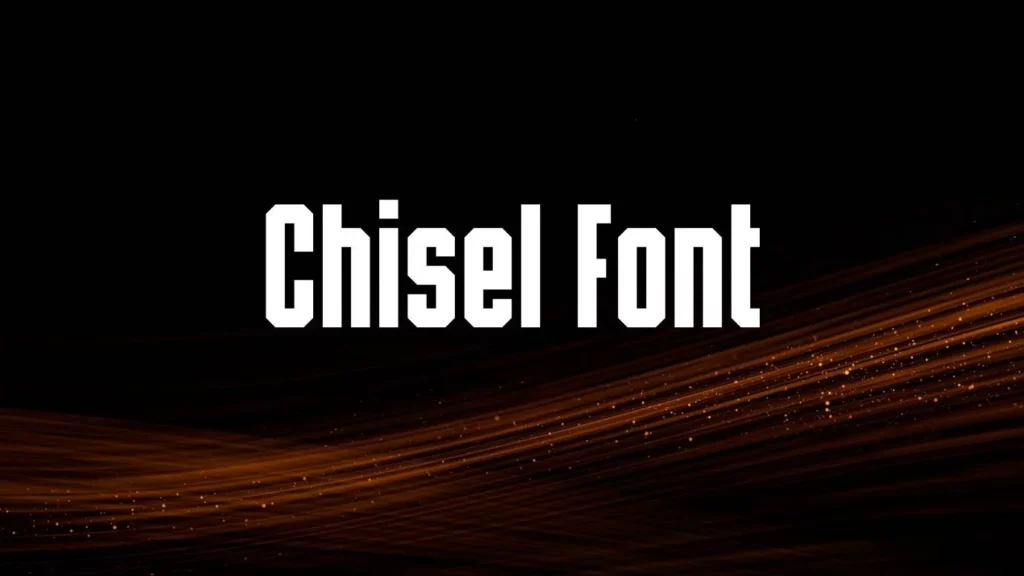
Chisel Font is a popular decorative display font that has been used for centuries to add personality and flair to documents, signs, and artwork. Its unique chiseled look makes it stand out from other fonts, and its versatility makes it perfect for a wide range of applications.
View of Chisel Font
Chisel Font is often described as having a “chiseled” look because of its sharp, angular edges. This unique style gives it a lot of personalities and makes it stand out from other fonts. It is also very versatile, which means it can be used for a wide range of projects.
You can also utilize this typeface for creating amazing signs and artwork. If you want to have an attractive project design then we would recommend you pair it with other typefaces such as gentle soft serif font is a good choice.
| Name | Chisel Font |
| Designer | Robert Harling |
Does Chisel typeface have good readability?
The Chisel typeface has excellent readability because of its high contrast and sharp edges. It is also very versatile. You can also use pulp fiction font as an alternative typeface.
Who is the designer of the Chisel typeface?
Robert Harling has taken the charge of designing this prominent typeface.
What kind of texture the Chisel is?
This typeface is a group member of the category of the display typeface.